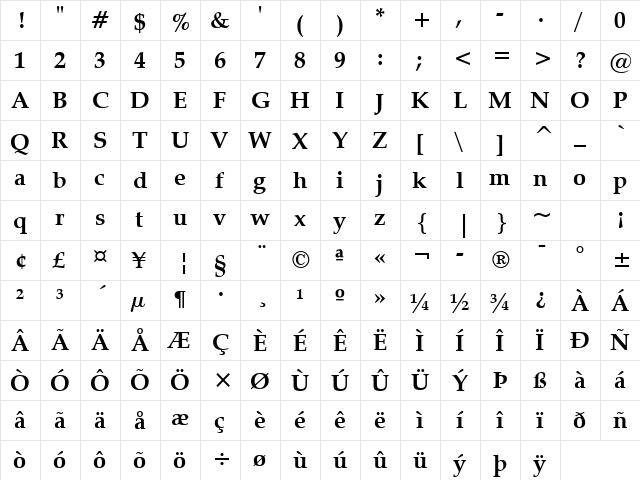
ZapfCalligr BT Bold
Design Context for ZapfCalligr BT Typeface
ZapfCalligr BT is a composed and adaptable typeface that performs quietly and consistently across a wide range of design contexts. The heavy weight commands attention and anchors typographic hierarchies.